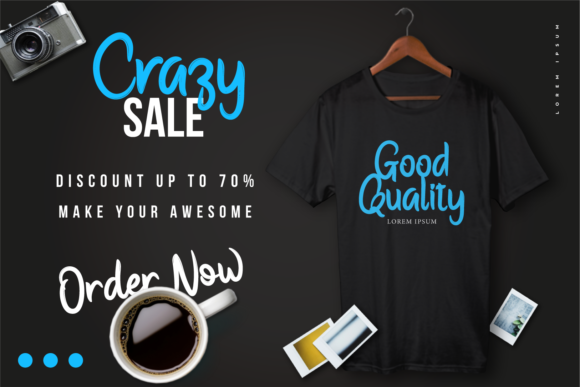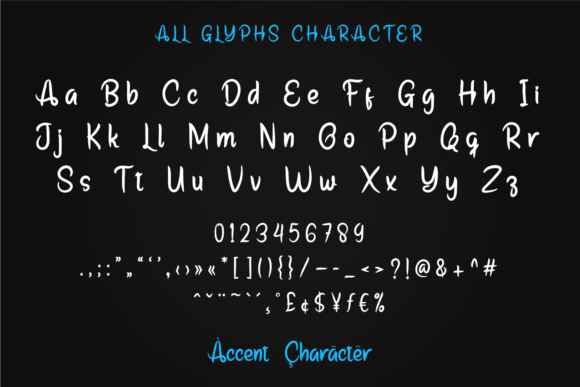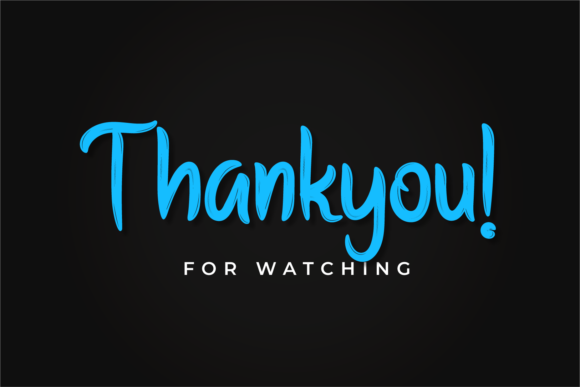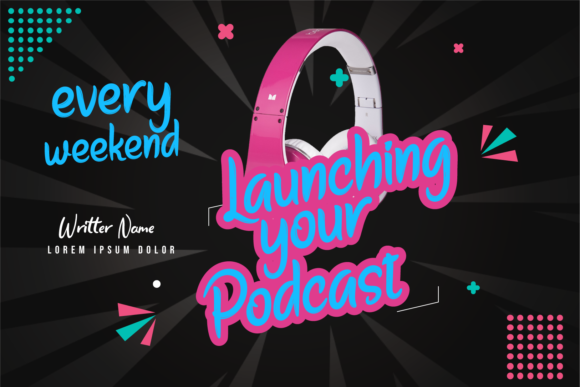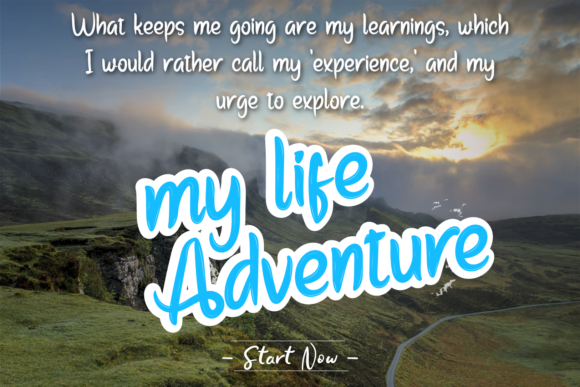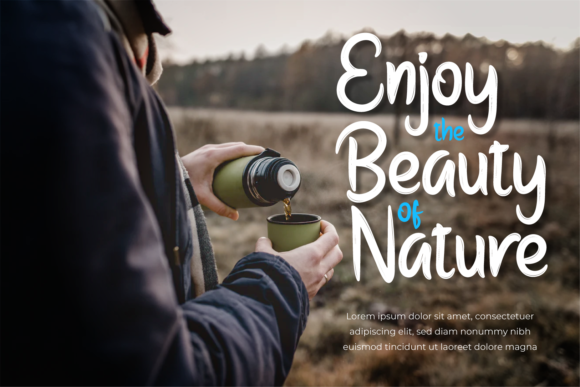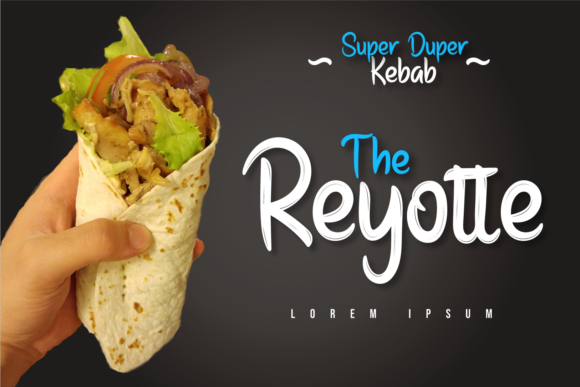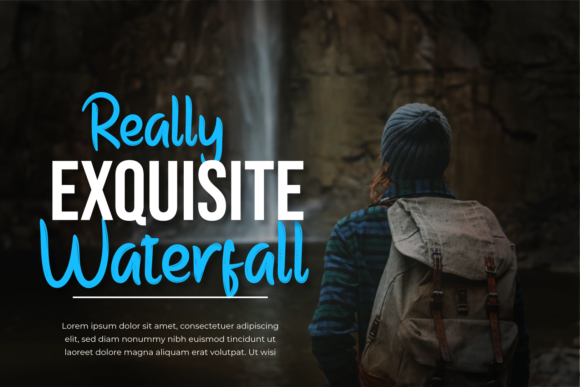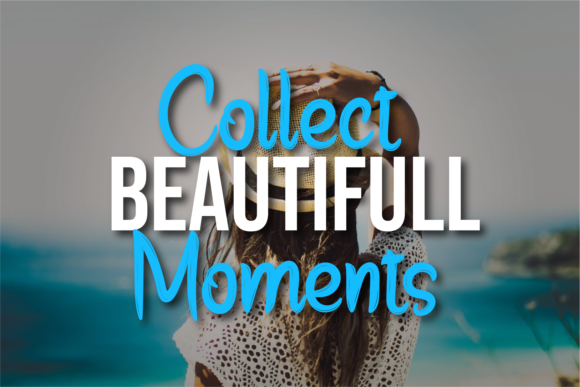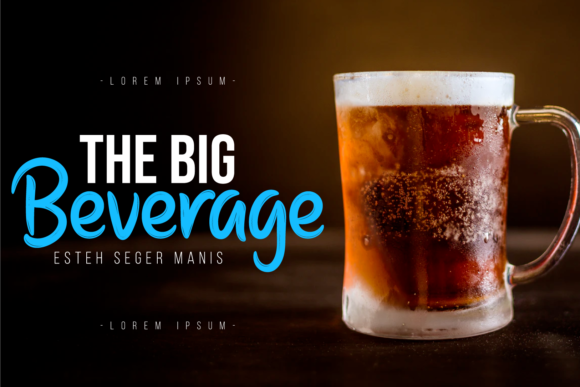
Yesterday Font
About Yesterday Font
Introducing Yesterday: The Trendy and Bold Lettered Handwritten Font
Step into the world of Yesterday, a font that effortlessly combines trendiness with bold lettering, making it the perfect choice for writing quotes, headlines, or any design you wish to put forth. Prepare to fall in love with its casual style as you use it to create incredible designs!
Yesterday’s trendy appeal adds a modern and stylish vibe to your projects. Its bold lettering creates a strong impact, ensuring that your message stands out with confidence and flair.
As a handwritten font, Yesterday exudes authenticity and character. Each letter carries a sense of spontaneity and creativity, adding a unique and personal touch to your designs.
The versatility of Yesterday is unmatched. Whether you’re crafting motivational quotes, eye-catching headlines, or attention-grabbing titles, this font elevates the impact of your words and ideas.
Embrace the casual charm of Yesterday as you embark on various design endeavors. From social media graphics to website banners, this font adapts seamlessly, making your creativity shine in every project.
As you delve into the possibilities of Yesterday, you’ll find it to be a font that ignites your passion for design. Its trendy and bold lettered beauty adds a touch of vibrancy and excitement to your creations.
So, let Yesterday be the font that elevates your design game. Fall in love with its casual style, and watch as your creations come to life with a dash of modernity and energy. With Yesterday as your go-to font, your designs will stand out and leave a lasting impression, inspiring your audience and making a statement that resonates. Embrace the charm of Yesterday and create designs that are not just incredible but truly unforgettable!